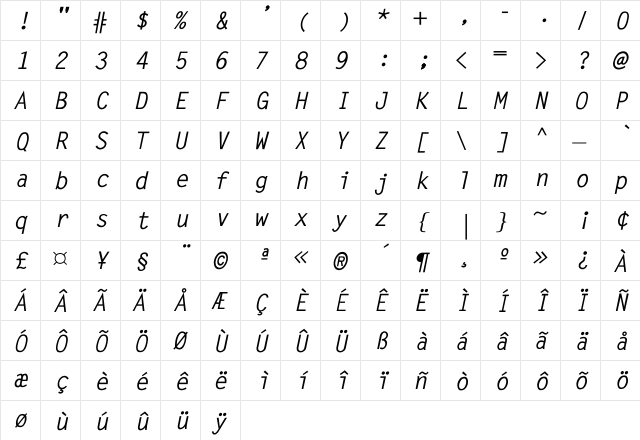
Krosky Italic Regular
Design Context for Krosky Italic Typeface
Krosky Italic takes a measured approach to typography — its balanced proportions and neutral character make it a reliable workhorse for both digital and print work. The dynamic lean of this cut emphasises speed and emphasis in any layout.
Pro Tip: Try Krosky Italic for annotation and caption copy alongside an upright companion — the contrast in angle creates a dynamic but ordered typographic system.